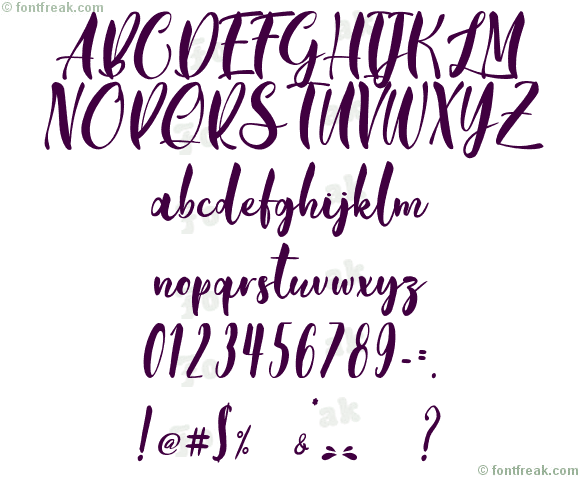
BlueLotusPersonalUse
BlueLotusPersonalUse is a captivating script font designed by Suthi Srisopha, falling under the category of decorative typefaces. Its elegant, flowing strokes and playful curves create a sense of sophistication and warmth, making it ideal for a variety of personal and creative projects. The font features a medium stroke weight with a slight contrast that adds depth, while generous spacing between the letters enhances readability and gives it a light, airy feel. Decorative elements, such as the unique swashes and flourishes, contribute to its artistic flair, making each letter a visual delight.
Best suited for invitations, BlueLotusPersonalUse is perfect for wedding announcements, birthday party invitations, and even baby shower cards. Its charming aesthetic can also elevate the design of restaurant menus, where it can evoke a sense of intimacy and style, or be used in branding materials for small businesses, allowing them to present a friendly and approachable image. Content creators will appreciate its versatility for social media graphics and blog headers, where it can make a strong visual impact.
What sets the BlueLotusPersonalUse font apart is its ability to blend elegance with a personal touch. This font free download offers an opportunity for creatives to infuse their work with a distinctive character, making it a standout choice for those seeking to leave a memorable impression. Whether used in formal invitations or casual designs, BlueLotusPersonalUse adds a touch of artistry that resonates with audiences.